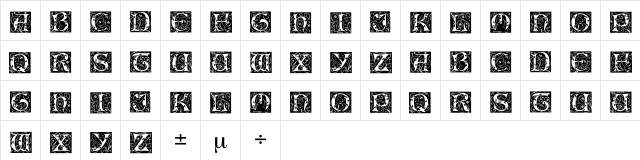
IlluminatiOneDisplayCapsSSi Regular
Design Context for IlluminatiOneDisplayCapsSSi Typeface
IlluminatiOneDisplayCapsSSi brings ornamental detail and strong personality to headlines and identities, where visual impact matters more than quiet functionality.
Font Pairing: Pair with a clean neutral sans-serif for body copy to let IlluminatiOneDisplayCapsSSi's character lead without overwhelming the composition.
Pro Tip: Use IlluminatiOneDisplayCapsSSi exclusively at display sizes — it was designed to be seen, not read at length. Let a neutral companion handle body copy.